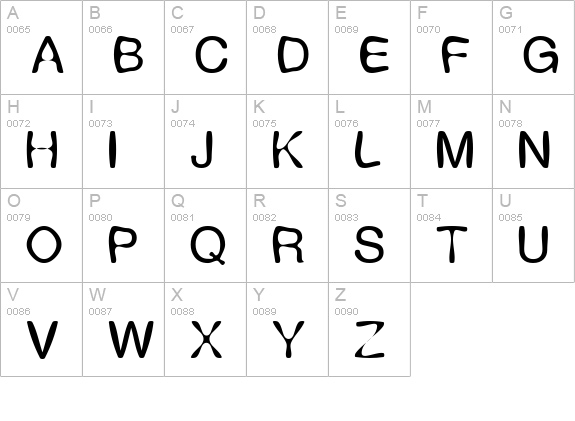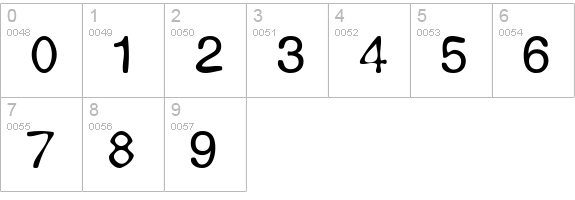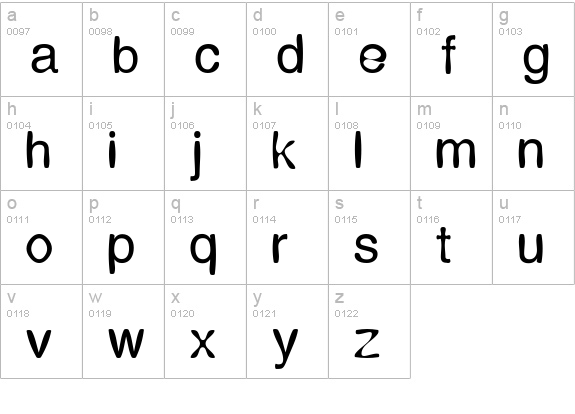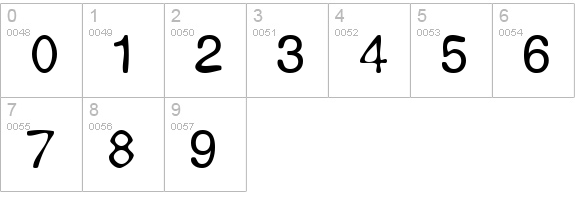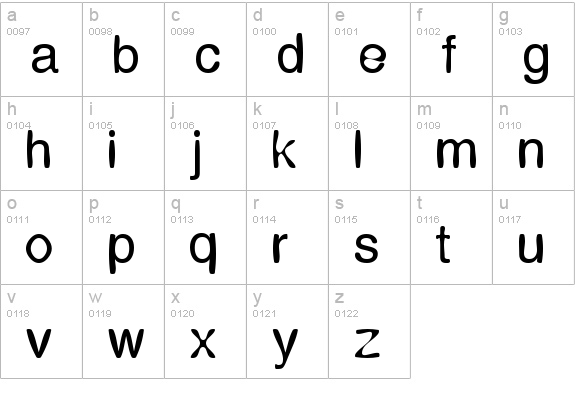
Expression Font Details
The Expression font is a stunning display typeface that exudes elegance and sophistication. With its graceful curves and unique letterforms, this font is perfect for adding a touch of refinement to any design project. The expressive nature of the font allows it to convey a wide range of emotions and messages, making it a versatile choice for both personal and professional use. What sets the Expression font apart is not only its beauty but also the fact that it is available for free download at FontsMarket.com. This means that you can easily access this exquisite font and incorporate it into your designs without any cost. Whether you're working on a branding project, a website design, or any other creative endeavor, the Expression font is sure to make a lasting impression. Embrace the beauty and versatility of the Expression font today by downloading it for free at FontsMarket.com. Elevate your designs with this elegant typeface and let your creativity shine.